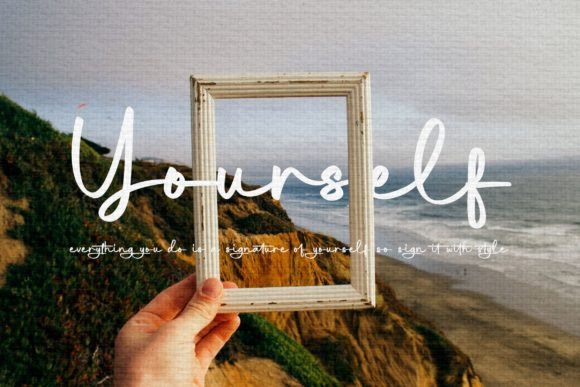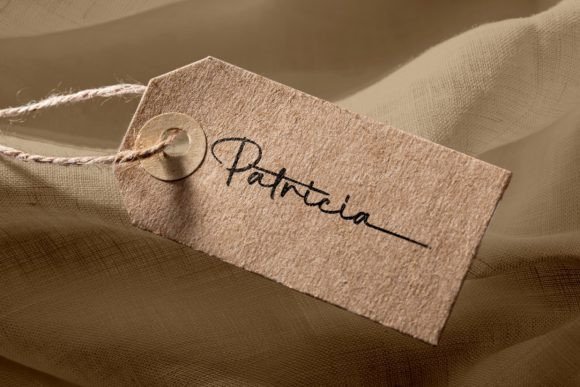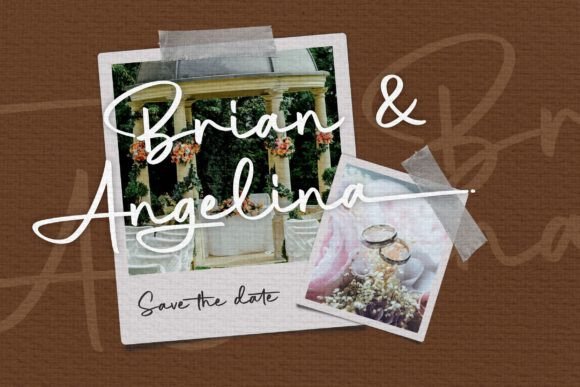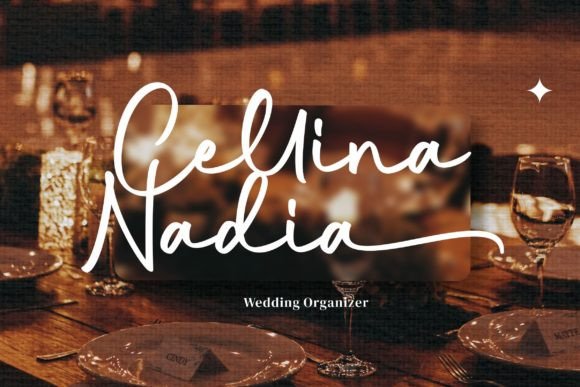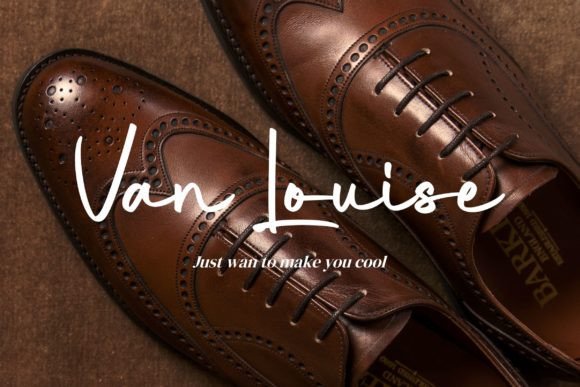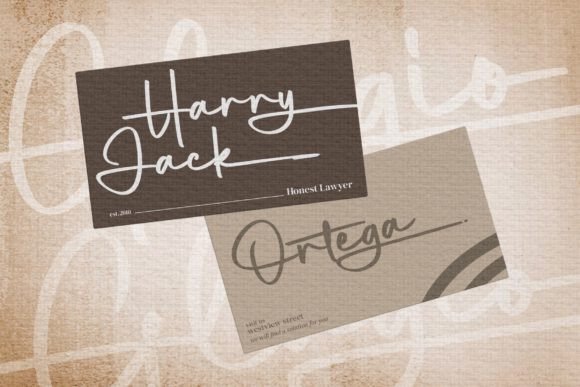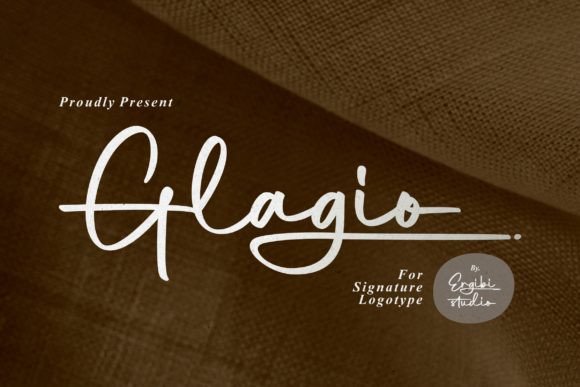
Introducing Glagio Font: Elevate Your Brand with Elegance and Sophistication
In the world of design, typography plays a crucial role in conveying the tone and personality of a brand. For photographers, studios, and personal branding, a signature font can make all the difference. Glagio Font is a stunning signature font that offers a unique blend of style, elegance, and versatility. In this article, we’ll explore the features and benefits of Glagio Font, and why it’s the perfect choice for designers, crafters, and photographers.
What is Glagio Font?
Glagio Font is a beautifully crafted signature font that boasts alternative characters, making it an excellent choice for creating photography studios or personal photography logos. Its elegant and sophisticated design makes it ideal for initial logos, brand signatures, and any project that requires a touch of refinement. Whether you’re a designer, crafter, or photographer, Glagio Font is sure to impress.
Key Features of Glagio Font
• PUA Encoded: Glagio Font is PUA (Private Use Area) encoded, which means you can access all the glyphs and swashes with ease. This feature allows you to unlock the full potential of the font and experiment with various design combinations.
• Alternative Characters: The font comes with alternative characters, providing you with a range of options to customize your design. This feature enables you to create unique and distinctive logos, signatures, or titles that reflect your brand’s personality.
• Elegant and Sophisticated: Glagio Font exudes elegance and sophistication, making it perfect for high-end brands, photography studios, or personal branding projects.
Use Cases for Glagio Font
Glagio Font is an incredibly versatile font that can be used in various design projects, including:
• Photography Studios: Create stunning logos, business cards, or promotional materials for your photography studio.
• Personal Branding: Develop a unique and recognizable brand signature that reflects your personality and style.
• Initial Logos: Design elegant and sophisticated initial logos for clients or personal projects.
• Crafter and Small Business: Use Glagio Font to create eye-catching branding, packaging, or marketing materials for your craft or small business.
Benefits of Using Glagio Font
By choosing Glagio Font, you can:
• Elevate Your Brand: Add a touch of sophistication and elegance to your brand, setting you apart from the competition.
• Save Time: With PUA encoding and alternative characters, you can quickly experiment with different design combinations and achieve professional-looking results.
• Increase Versatility: Use Glagio Font across various design projects, from logos and signatures to titles and promotional materials.
Tips for Getting the Most Out of Glagio Font
To maximize the potential of Glagio Font:
• Experiment with Swashes: Take advantage of the font’s swashes and glyphs to create unique and eye-catching designs.
• Mix and Match: Combine Glagio Font with other fonts or design elements to create a distinctive look that reflects your brand’s personality.
• Pay Attention to Kerning: Adjust the kerning to ensure that your text looks balanced and visually appealing.
Glagio Font is an exceptional signature font that offers a perfect blend of style, elegance, and versatility. With its PUA encoding, alternative characters, and sophisticated design, it’s an excellent choice for designers, crafters, and photographers looking to elevate their brand. Whether you’re creating a photography studio logo, personal branding, or initial logo, Glagio Font is sure to impress. So why wait? Get creative with Glagio Font today and take your design to the next level!